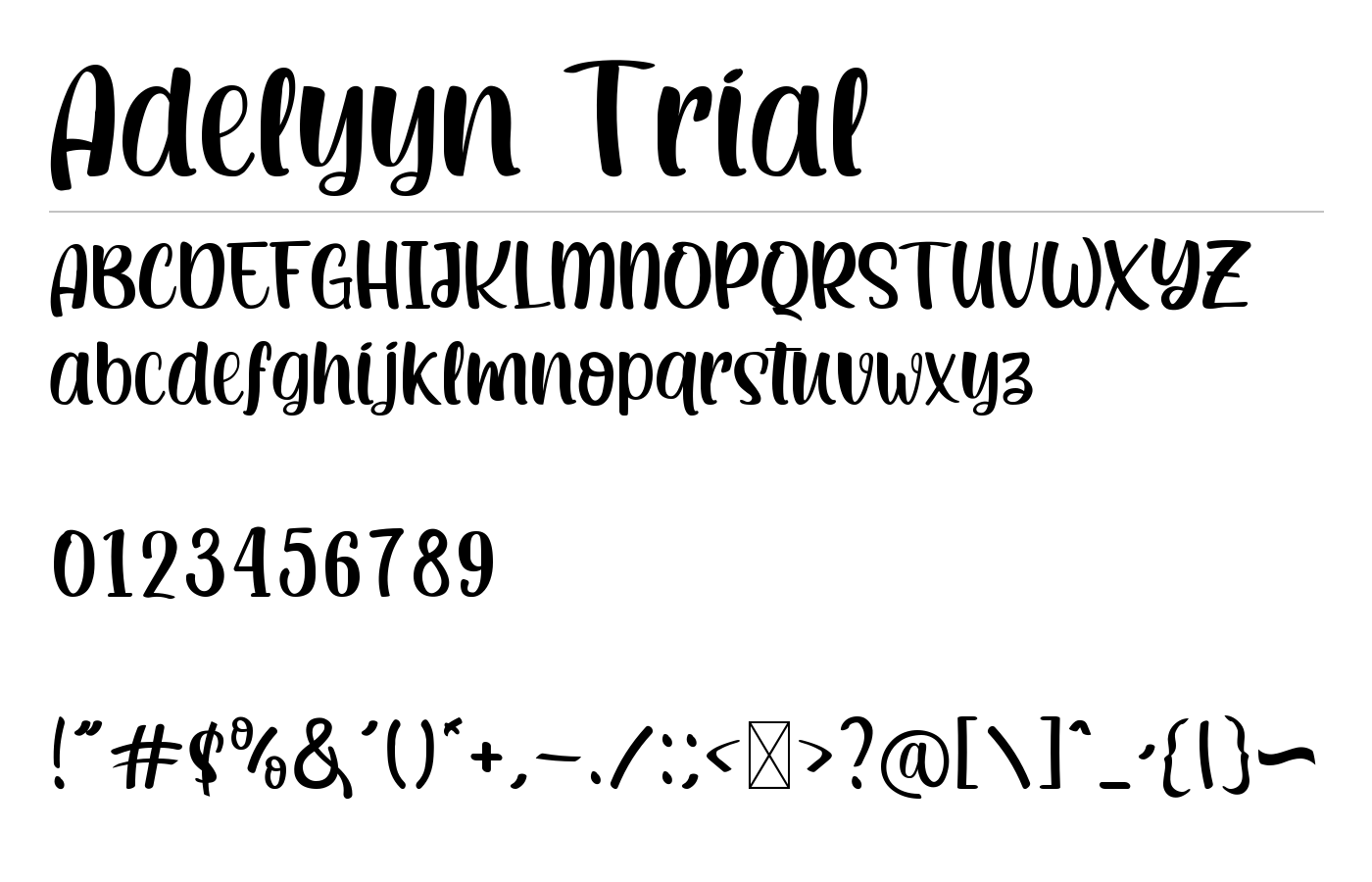
Adelyyn is a lively and friendly script font with a modern handwritten feel, featuring rounded, smooth strokes and slightly playful letterforms that maintain readability. Its medium weight and moderate contrast make it versatile for creative branding, invitations, and casual editorial projects where a warm and approachable personality is desired. This font works well for designs aiming to convey charm and individuality without losing clarity.
Adelyyn Font